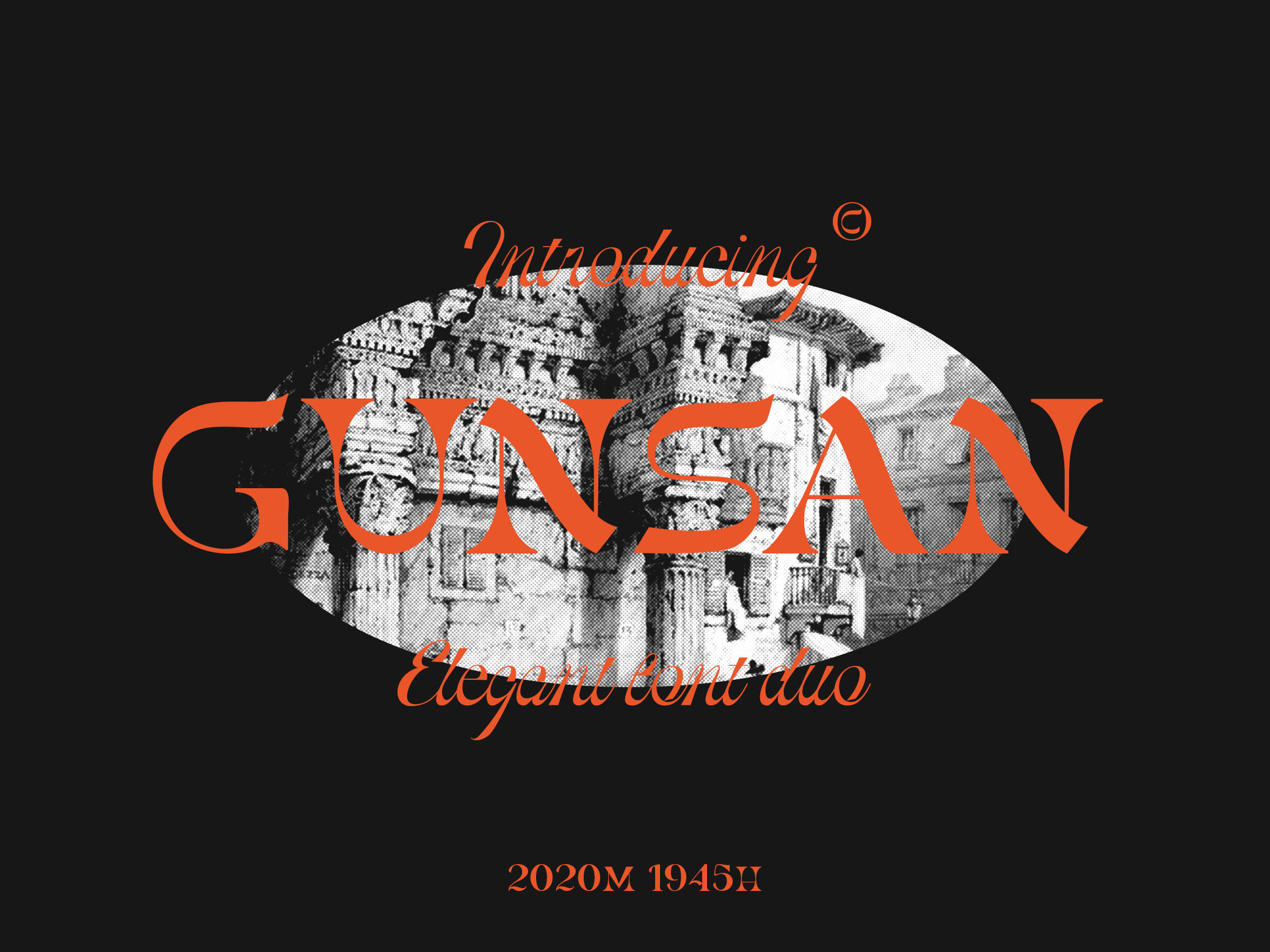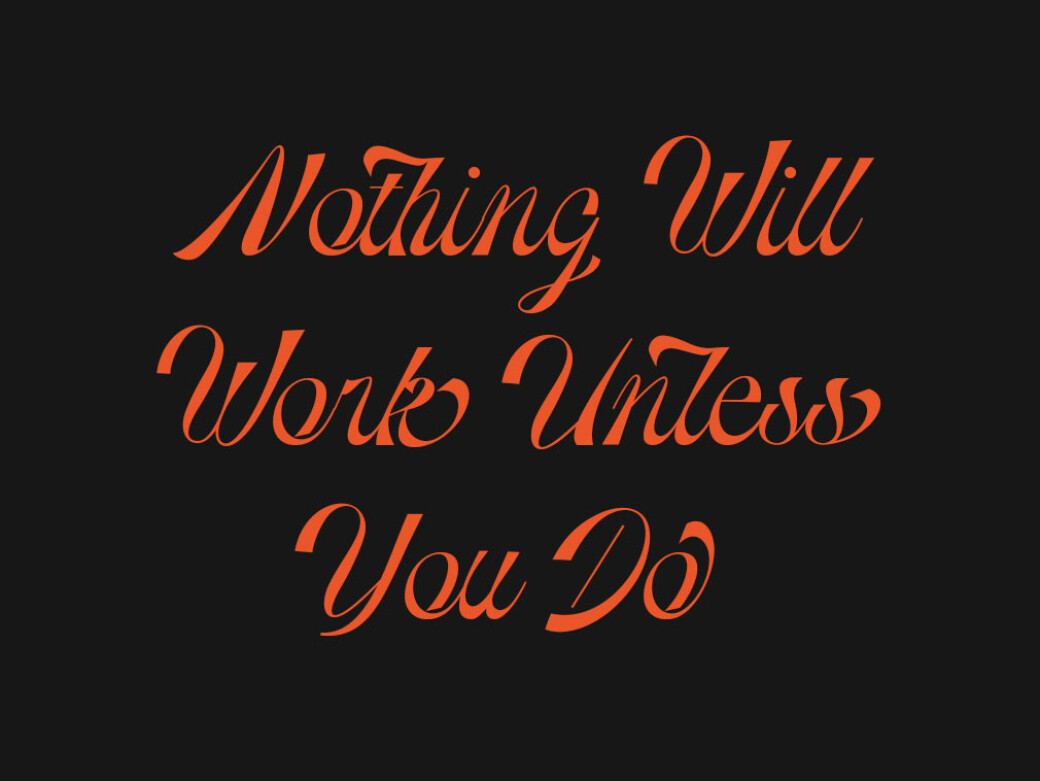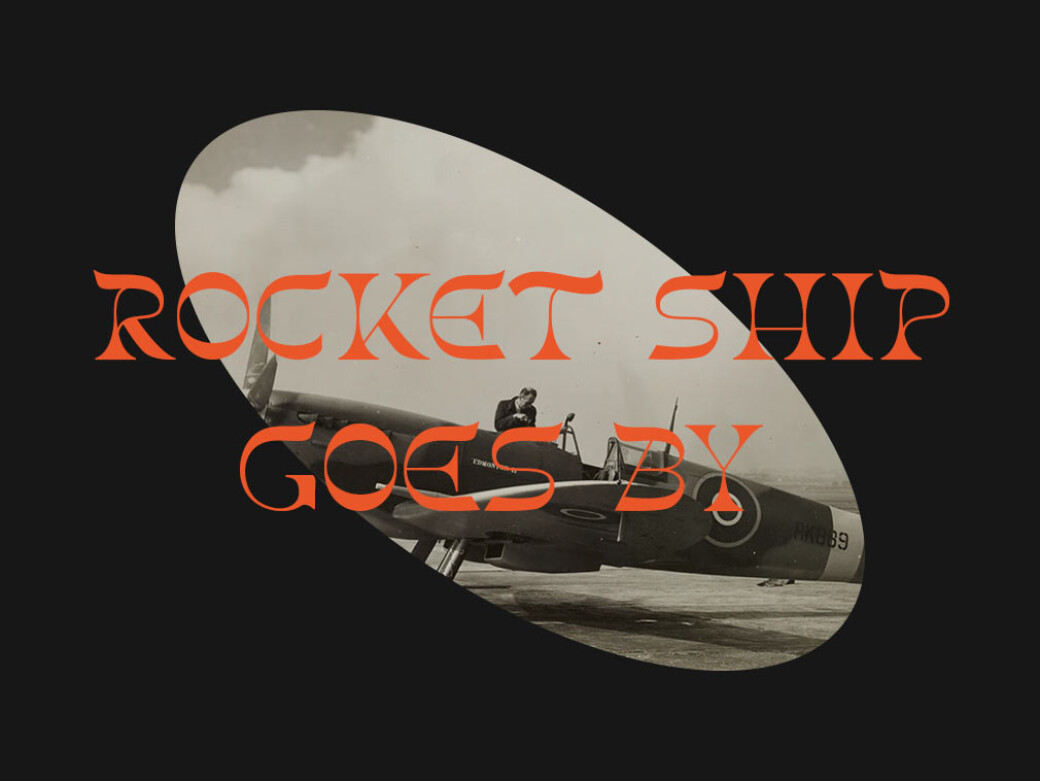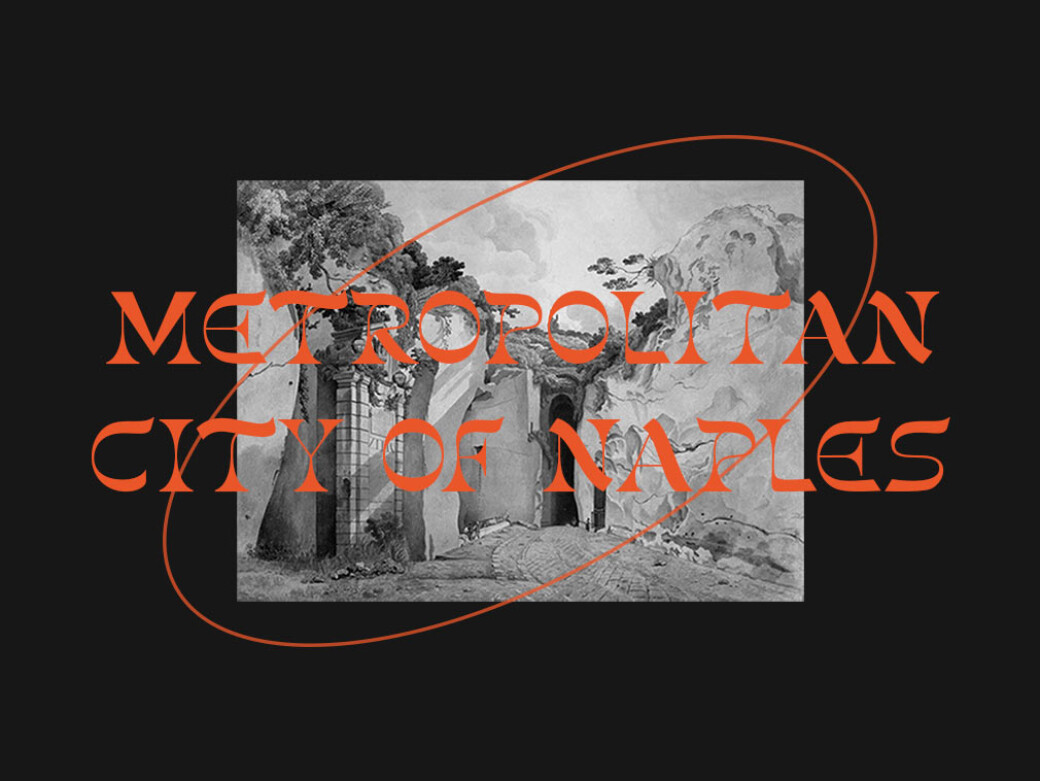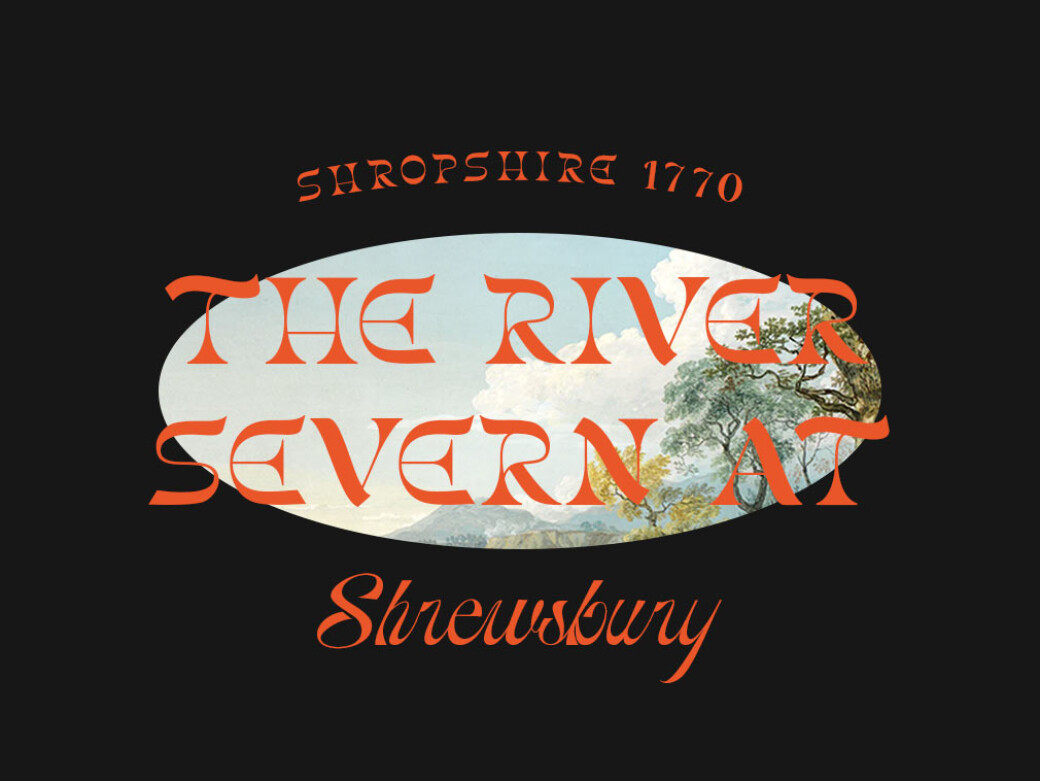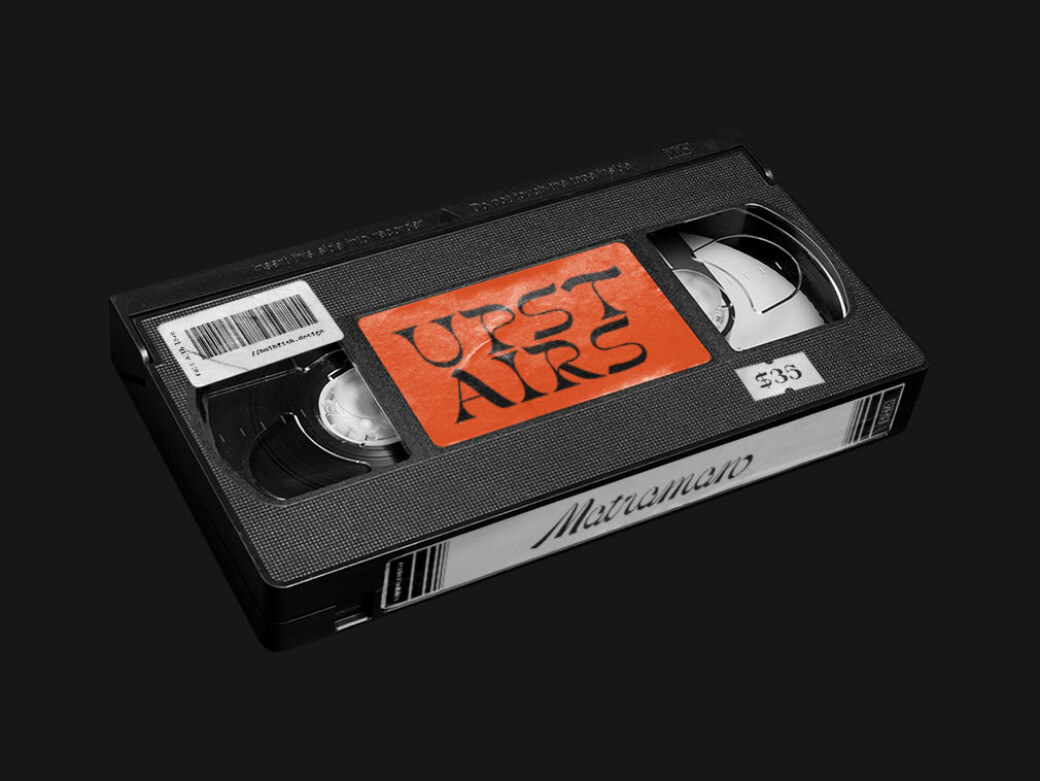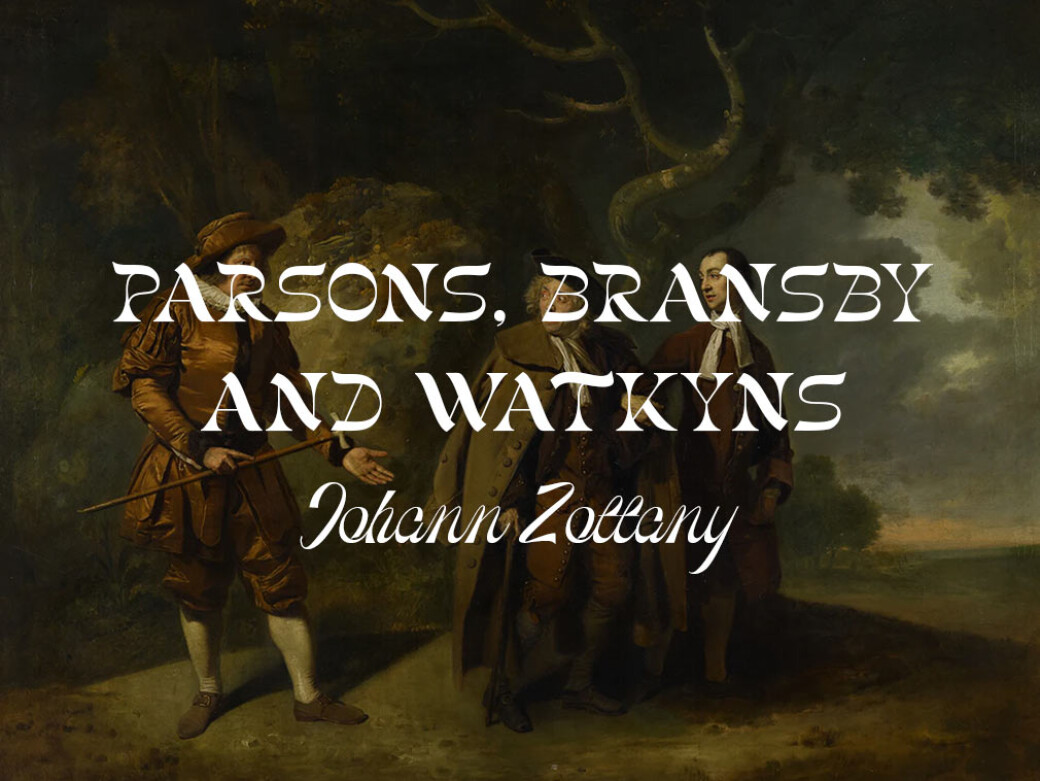
Gunsan Display Font
One font is great but having two is even better! Especially if they complement each other: powerful serif and refined script. Create striking compositions, armed with only one typography kit!Gunsan font duo is an elegant font that has advantages in every letter: designed with a mix of vintage and modern elements that give any headline a stunning appearance. Having a great choice of glyphs and multilanguage support, it works perfectly for creative projects such as logotype, invitation, packaging, headline or poster design. The best part about it is that font will work in Illustrator, Photoshop and Indesign.